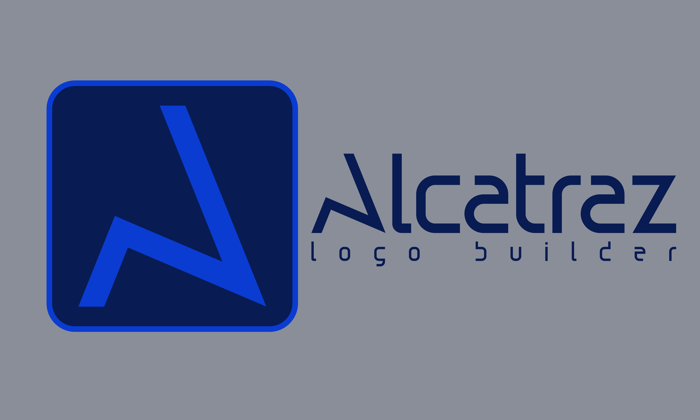
Alcatraz Font
Alcatraz feels sporty, futuristic and incredibly sleek and makes a unique addition to any creative project. Get inspired by its stylish look!